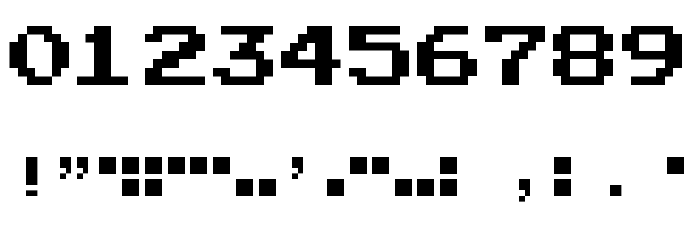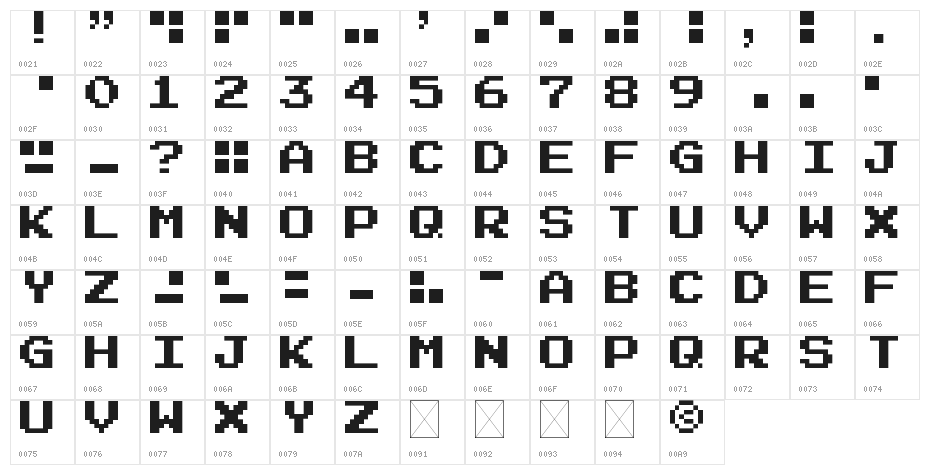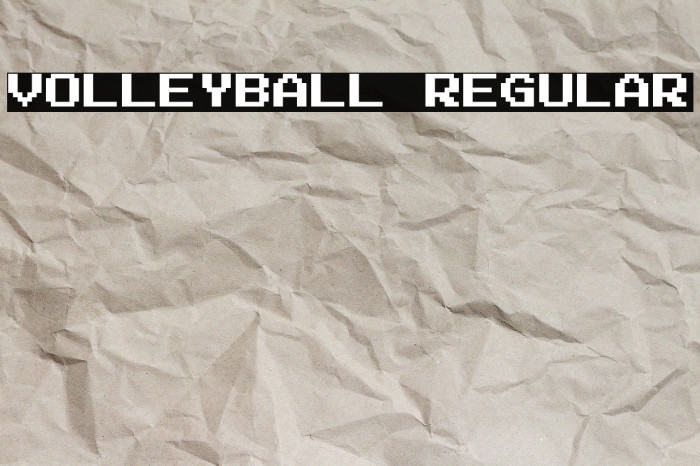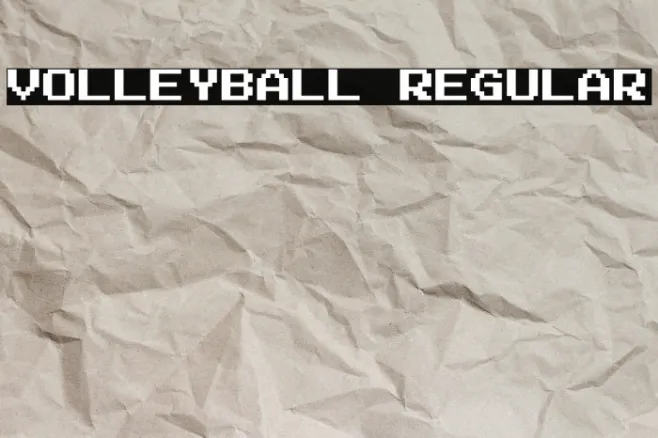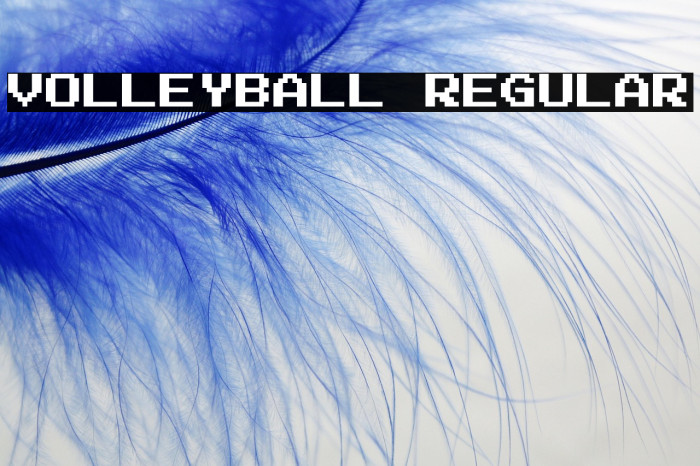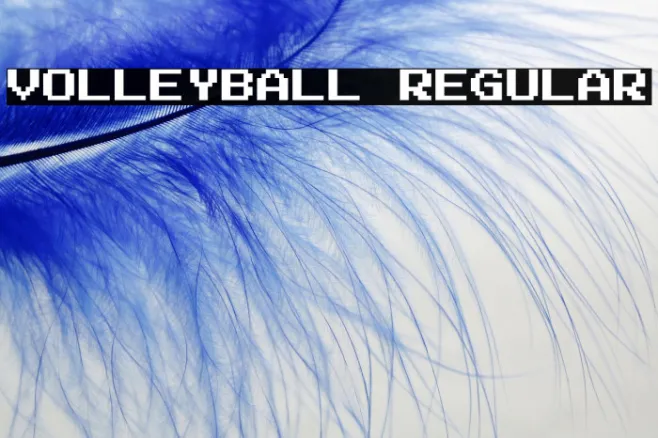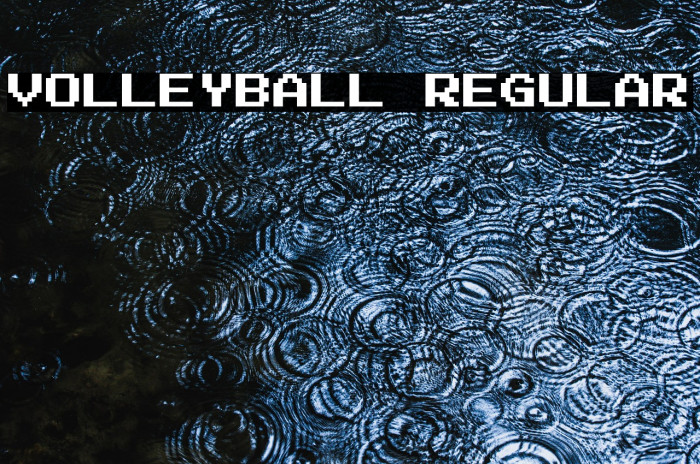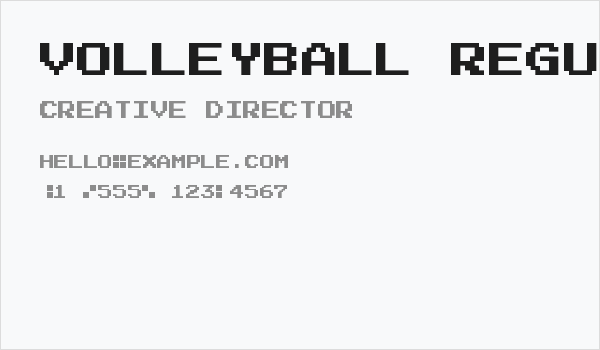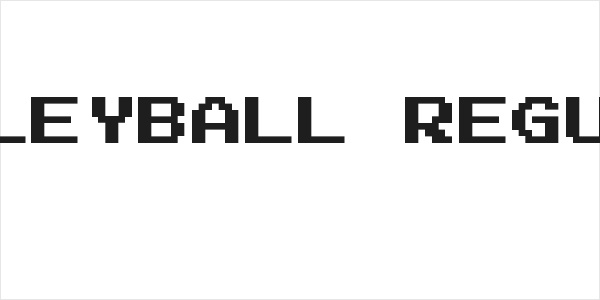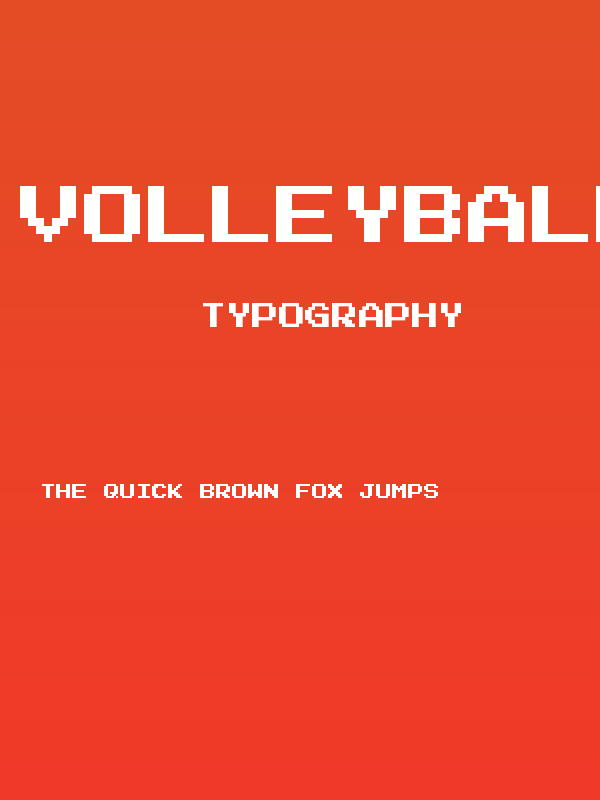
Volleyball Regular Font
Volleyball Regular Description
This font features a bold, pixelated style reminiscent of early digital displays and video games. Its blocky, geometric shapes create a strong visual impact, making it ideal for designs that require a retro or tech-inspired aesthetic. The uniformity in character height and width contributes to a cohesive and structured appearance. Despite its boldness, the font maintains legibility, with clear distinctions between characters. The spacing is tight, enhancing its compact and efficient look. This style is particularly effective for capturing attention in digital media, posters, and themed projects.
| Proposed Projects | Ideal for video game graphics, retro-themed posters, digital art, and tech-related branding. |